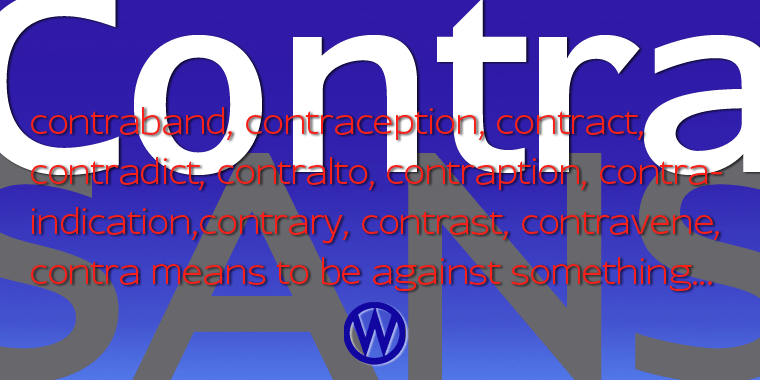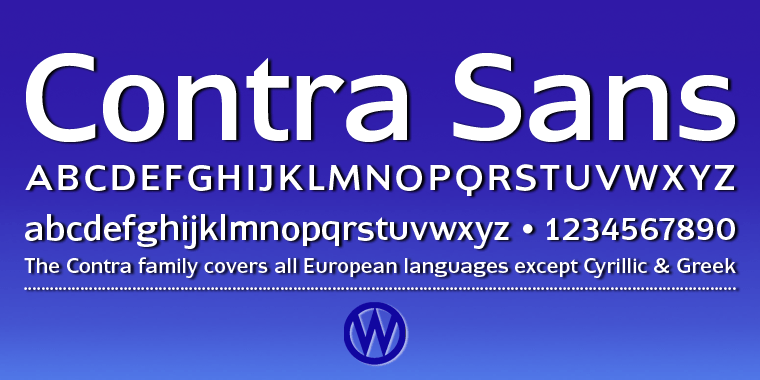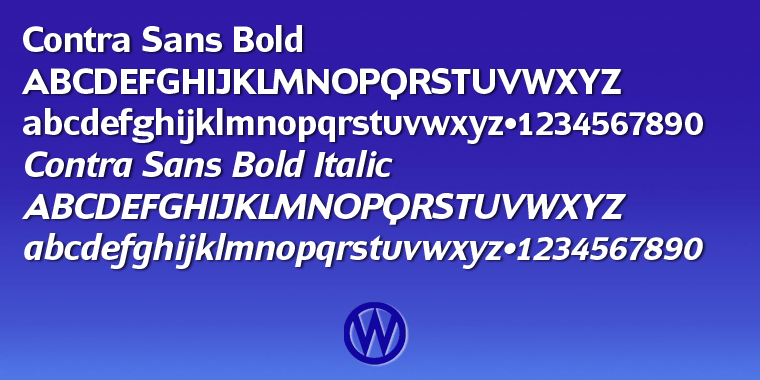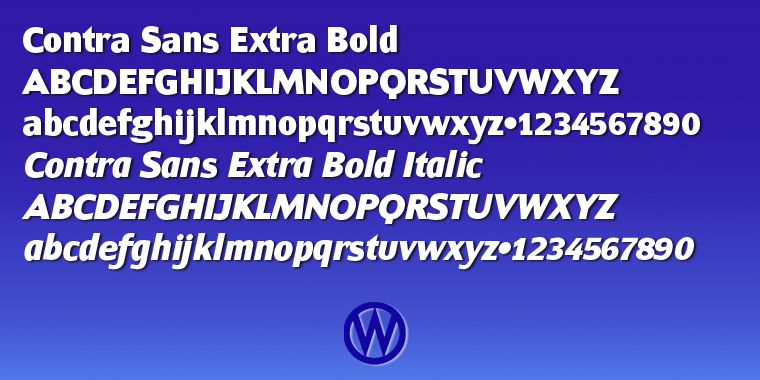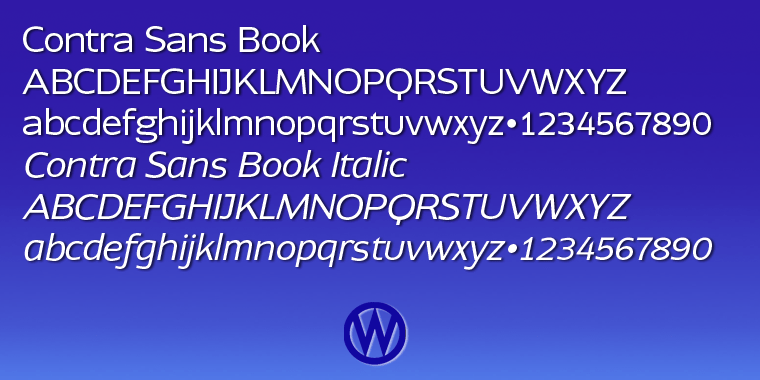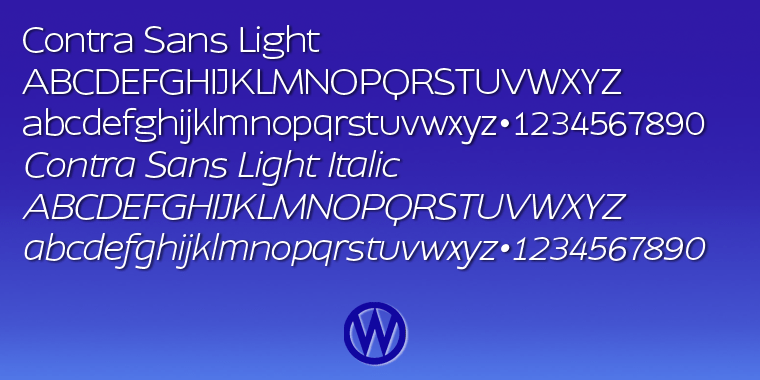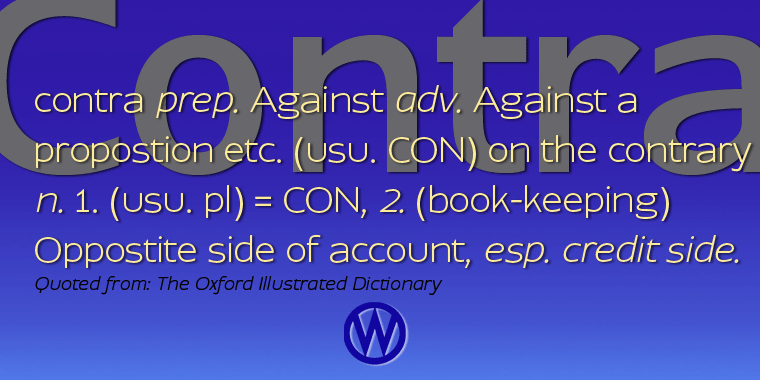
Contra Sans
Font Family by Wiescher Design
Contra Sans is the base of my Contra family of fonts. It has just sufficient contrast to make for easy reading and an interesting appearance.